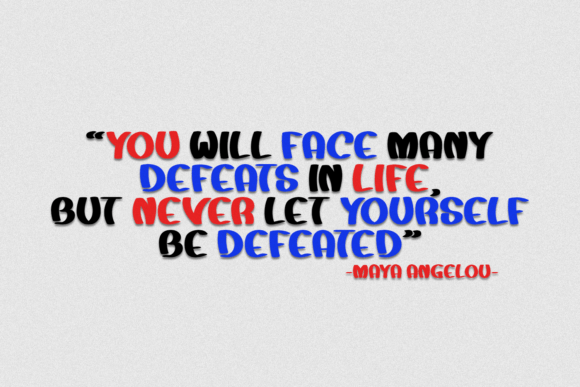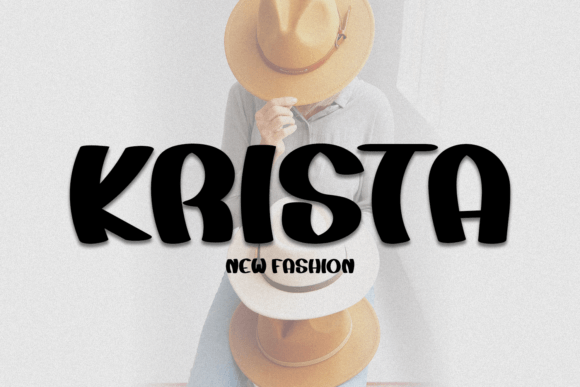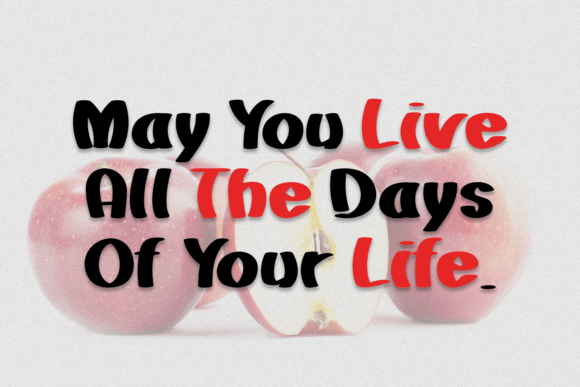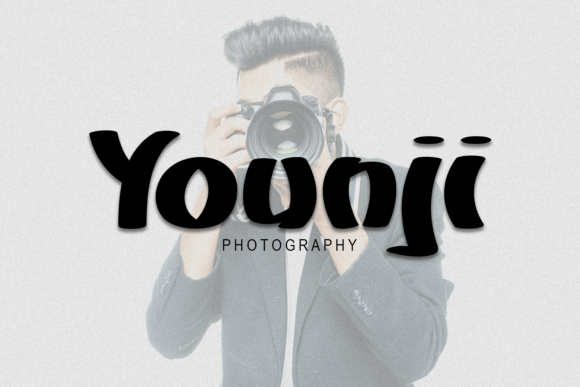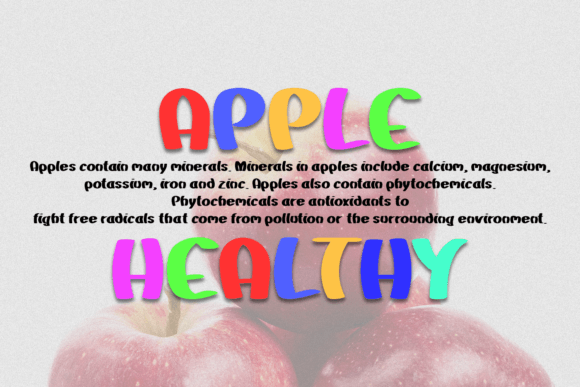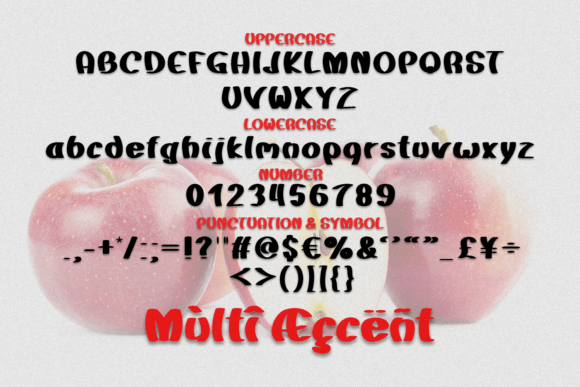
Introduction to Curvy Apple Font
Curvy Apple is a modern font made to look like handwriting.
This simple and unique font is suitable for designing posters, stickers, cards, and more .
Key Features of Curvy Apple Font
Why Choose Curvy Apple Font?
Curvy Apple Font offers exceptional quality and versatility, making it a valuable addition to your design toolkit. Whether you’re creating for personal projects or commercial use, Curvy Apple Font delivers professional results.